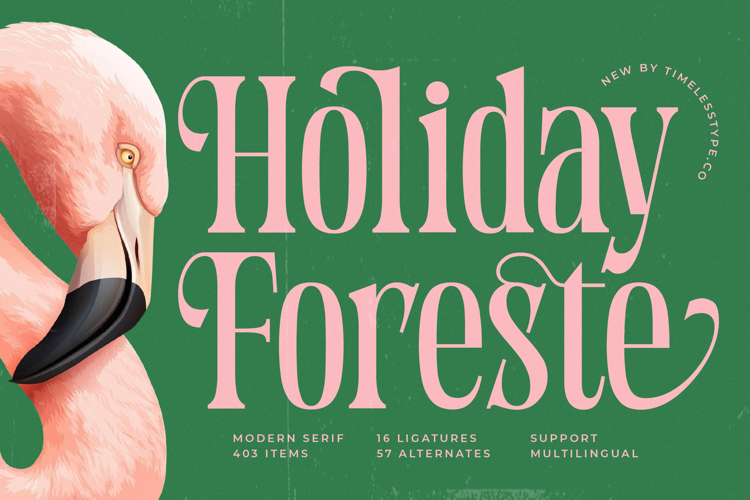
Holiday Foreste - Modern Serif Font
Font Holiday Foreste - Modern Serif Font Serif Display redefines elegance, offering a captivating blend of classic sophistication and contemporary flair. This exquisite display serif typeface features a striking high-contrast design with delicate serifs and sweeping curves, ensuring every headline and title commands attention. Its refined aesthetics evoke a sense of luxury and timeless appeal, perfect for projects demanding an elevated visual presence.
Unlock unparalleled creative freedom with Font Holiday Foreste - Modern Serif Font Serif Display, equipped with an impressive array of 16 ligatures and 57 alternates. These carefully crafted stylistic sets provide designers with immense flexibility, allowing for truly unique typographic compositions. Experience how its thoughtful character variations can transform ordinary text into extraordinary visual statements, adding a distinctive touch to your creative endeavors.